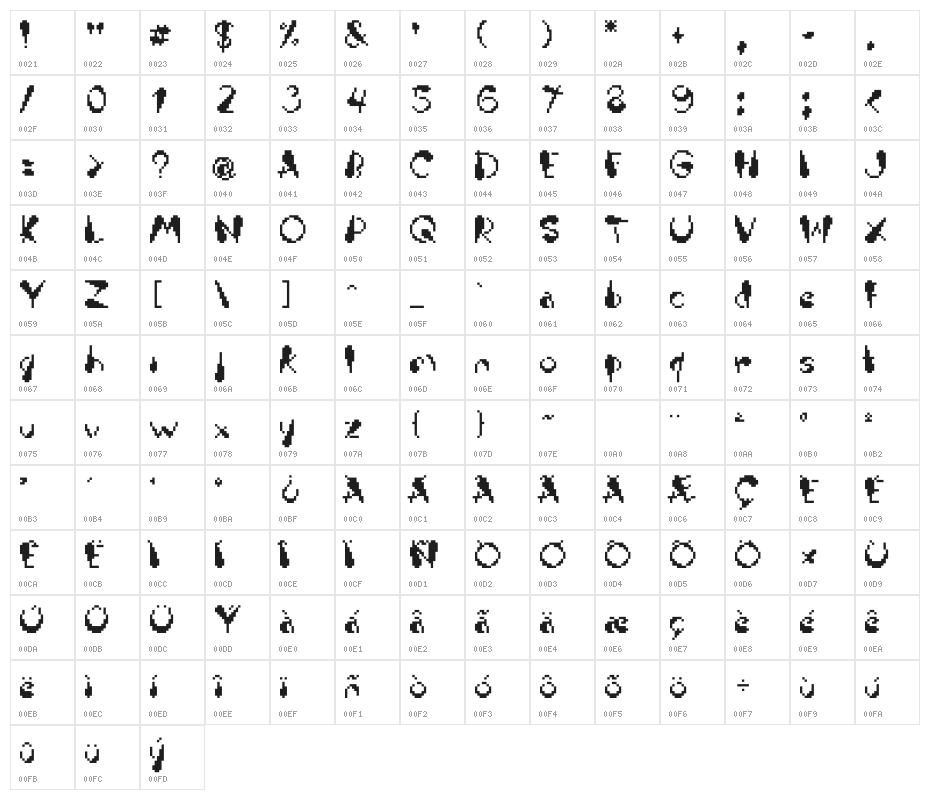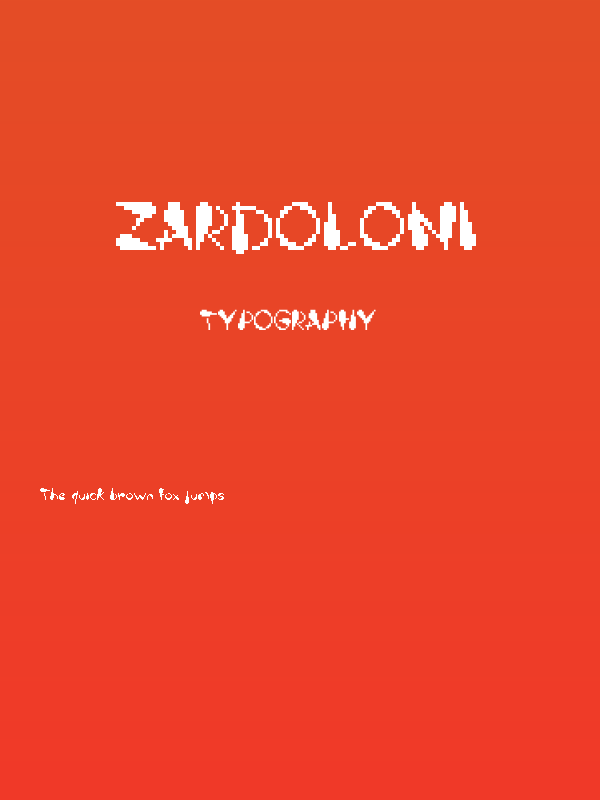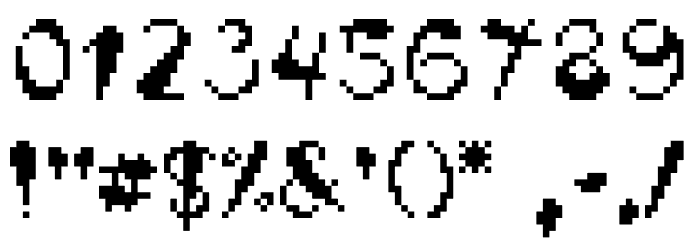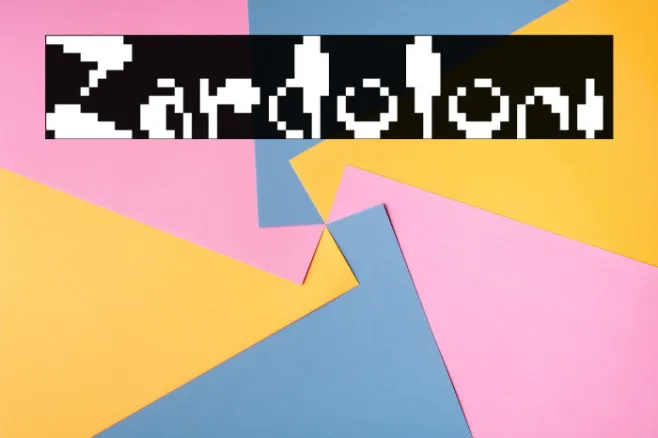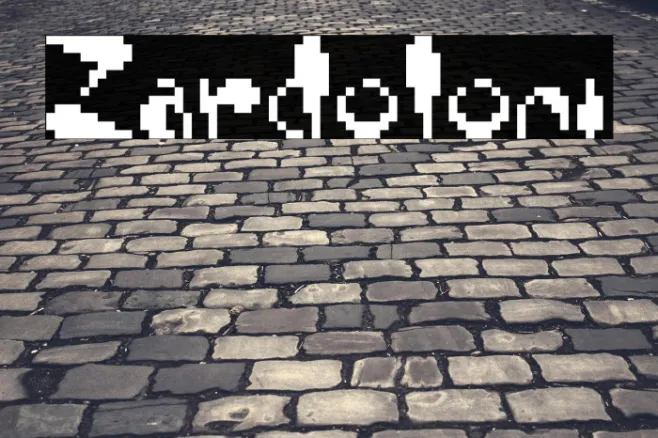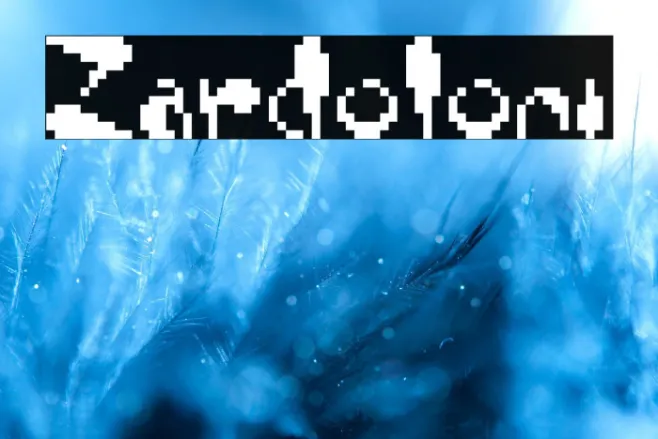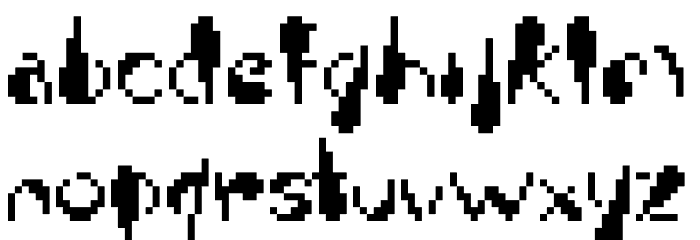
Zardoloni Font
Zardoloni Description
This font features a bold and jagged appearance, with characters that have an irregular, hand-drawn quality. The strokes are uneven, creating a dynamic and edgy look. The uppercase letters are particularly striking, with exaggerated angles and a sense of movement. Lowercase letters maintain this energetic style, offering a consistent visual theme throughout. The numerals and special characters follow suit, ensuring a cohesive design. This font is ideal for projects that require a bold statement or an artistic touch, such as posters, album covers, or creative branding.
| Proposed Projects | Posters, album covers, creative branding, artistic projects. |